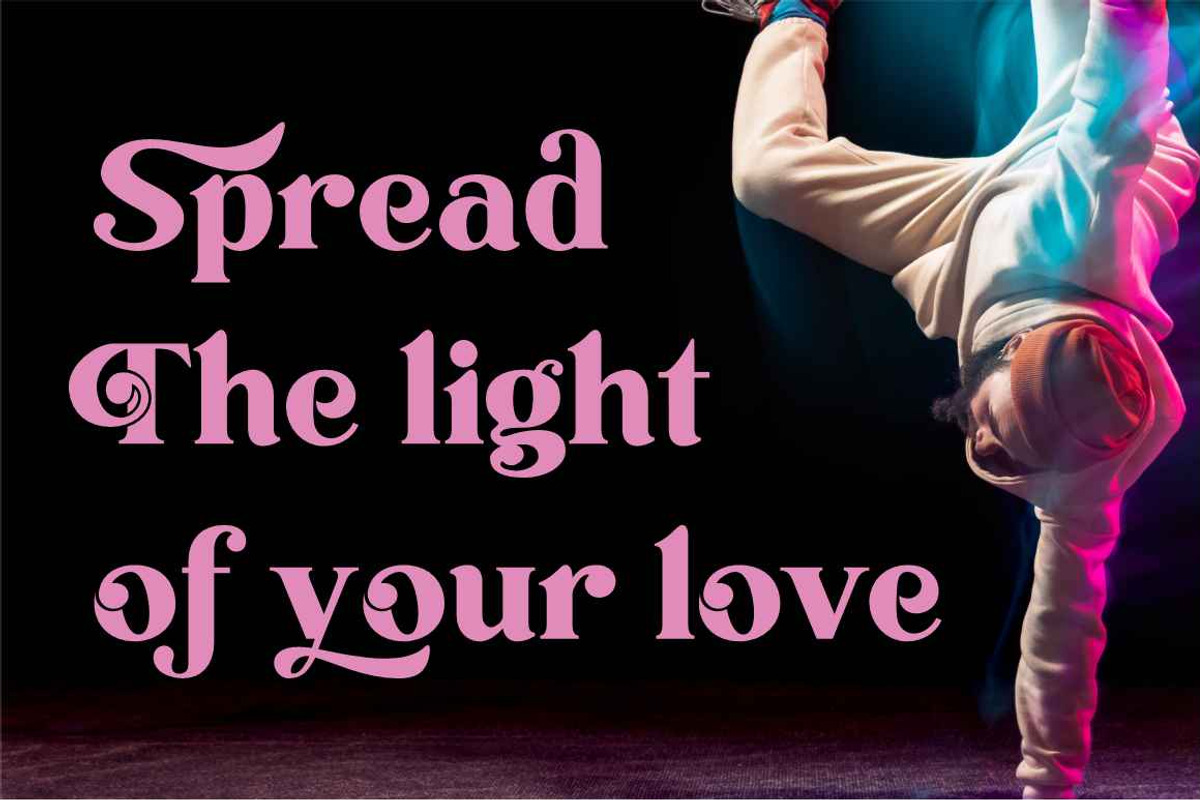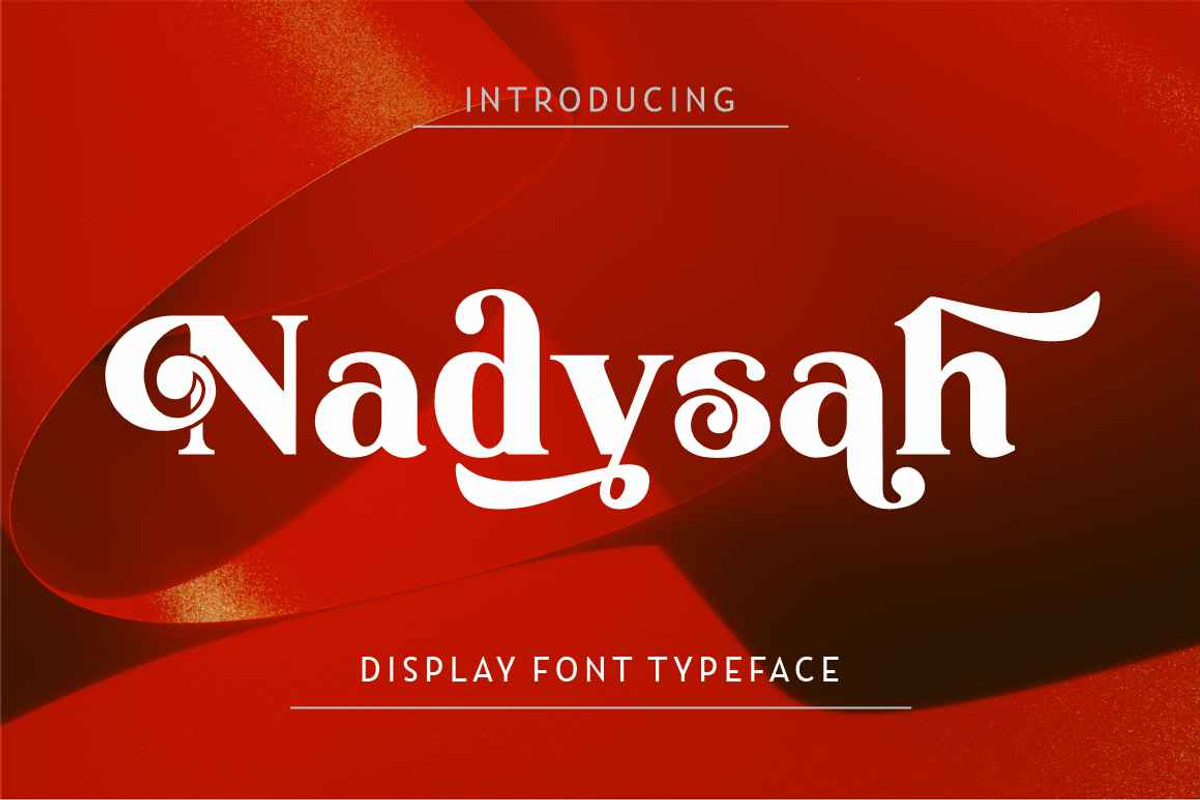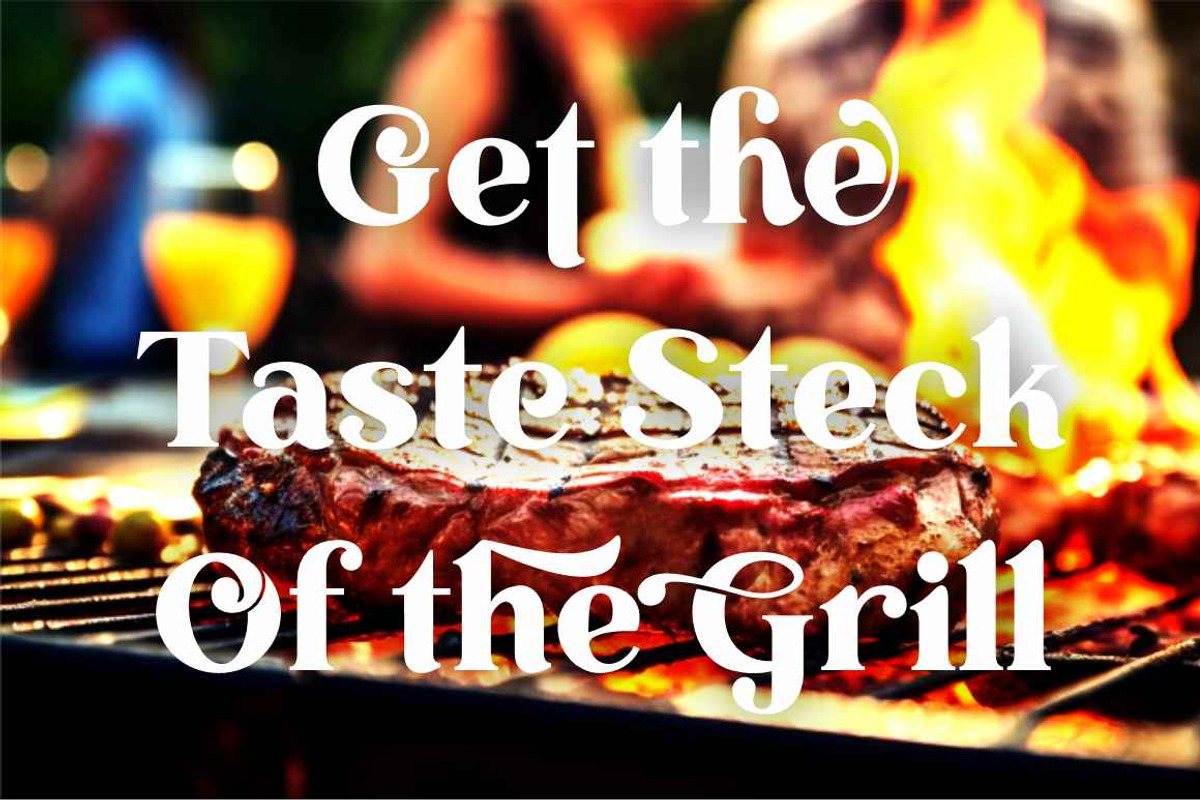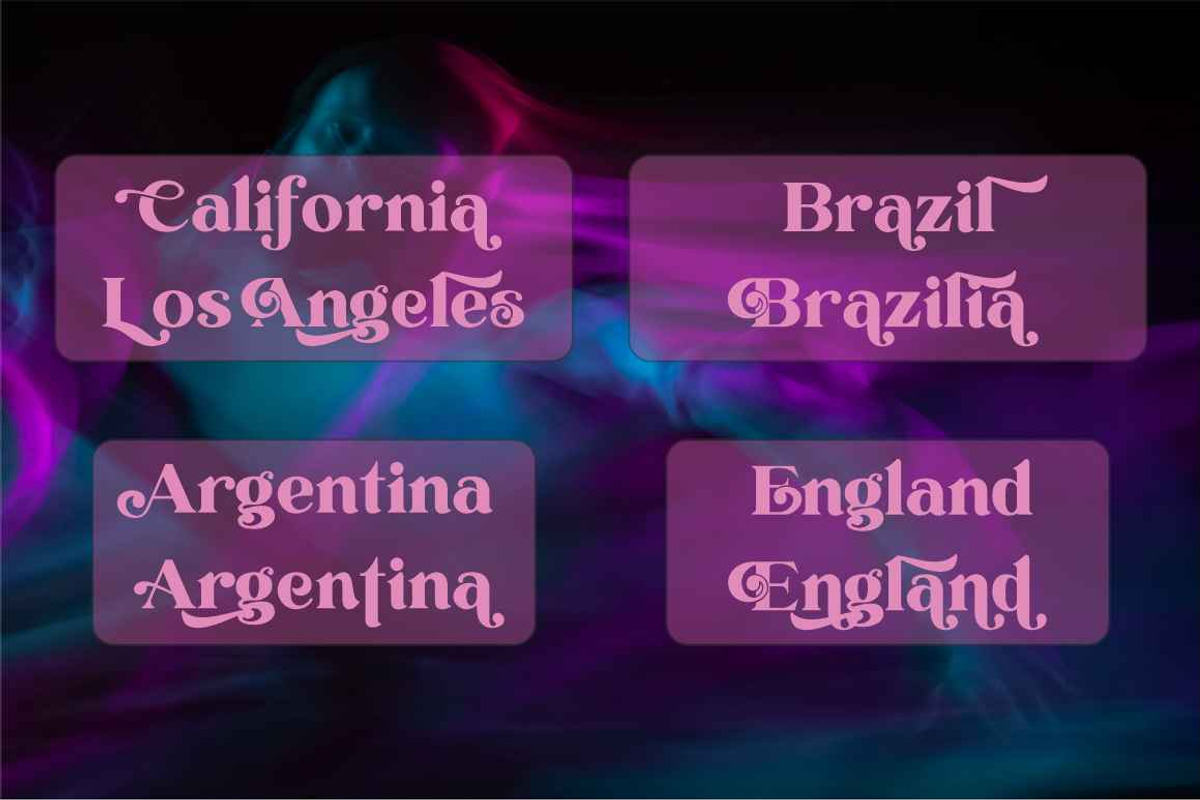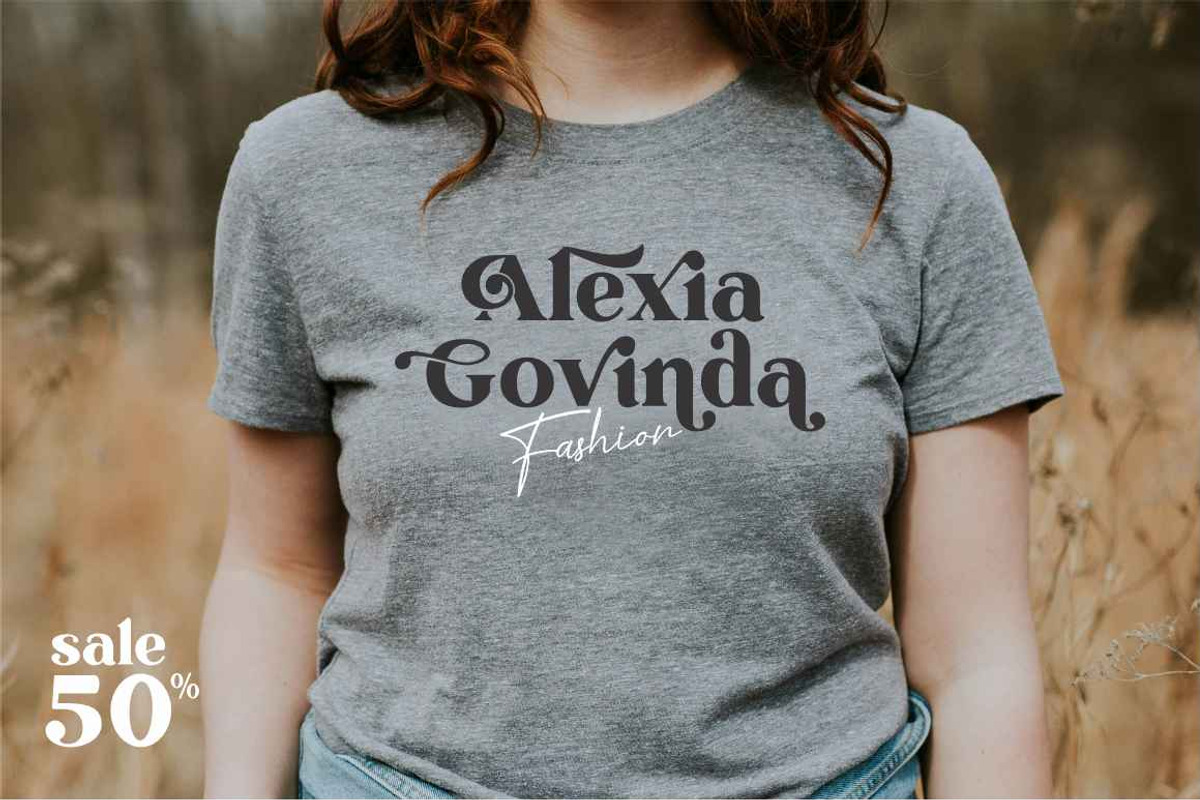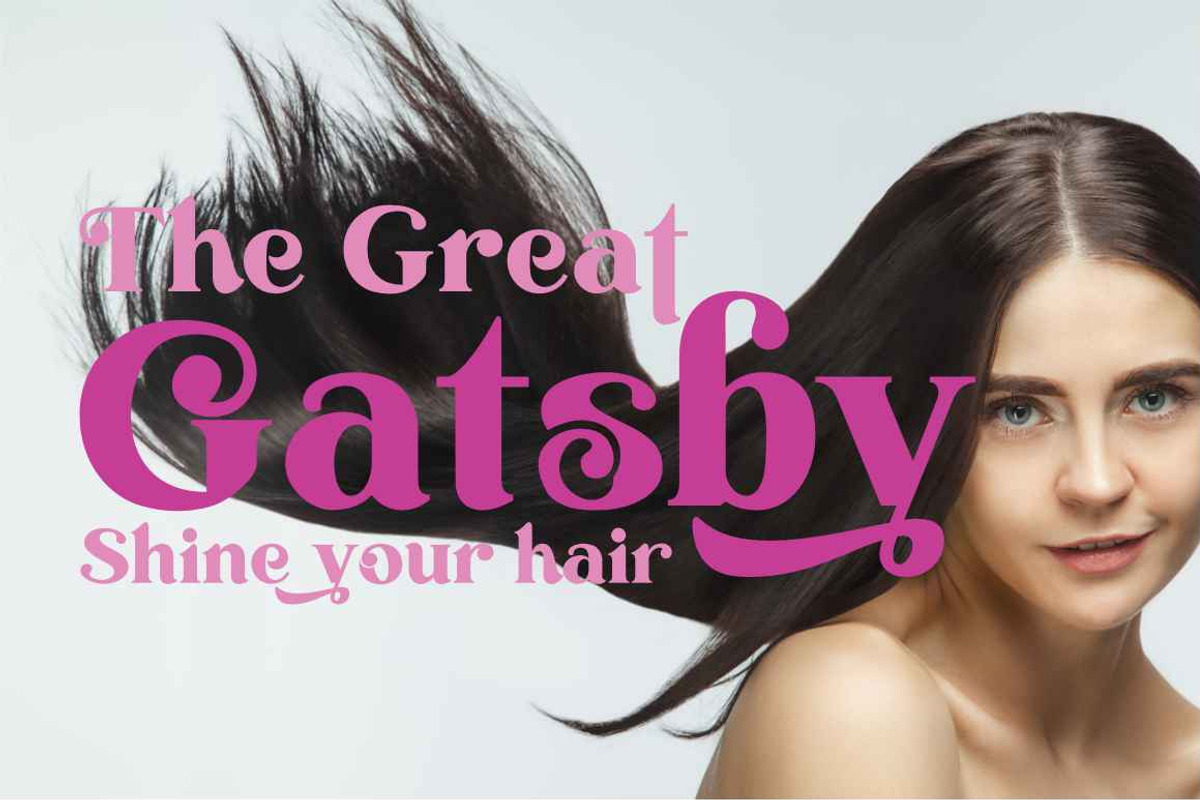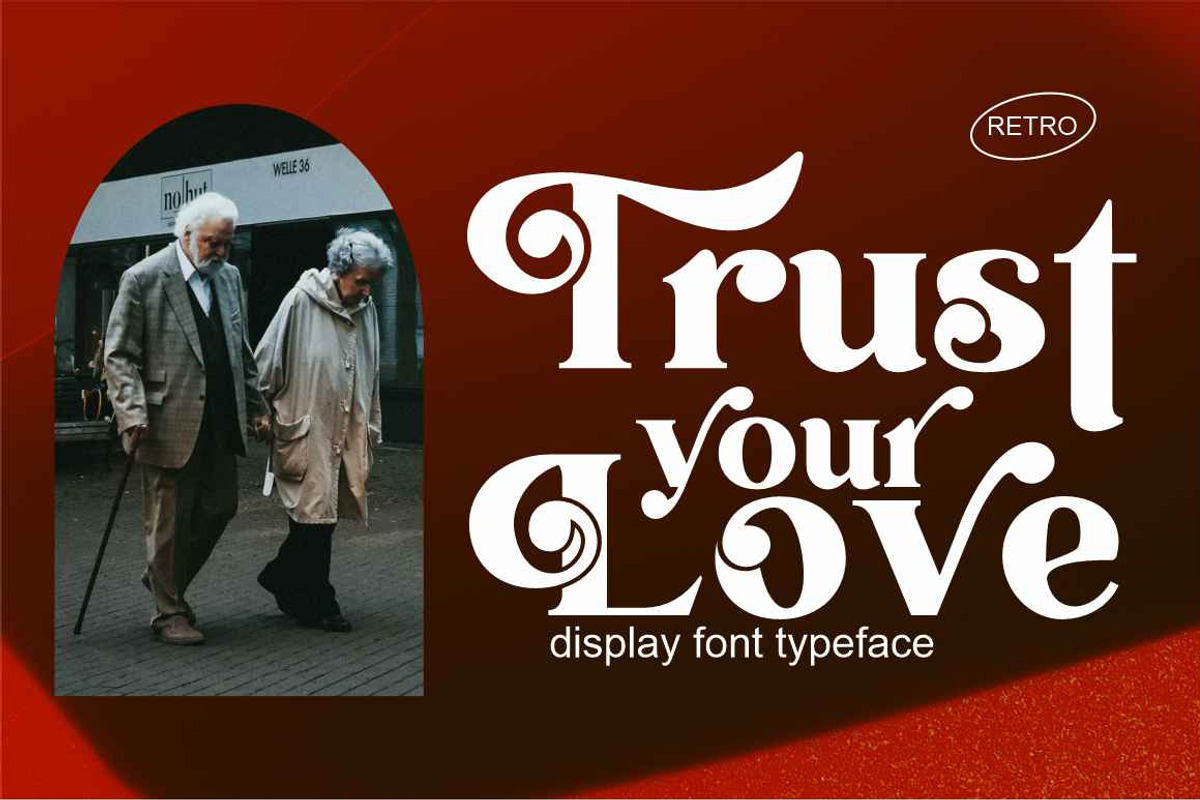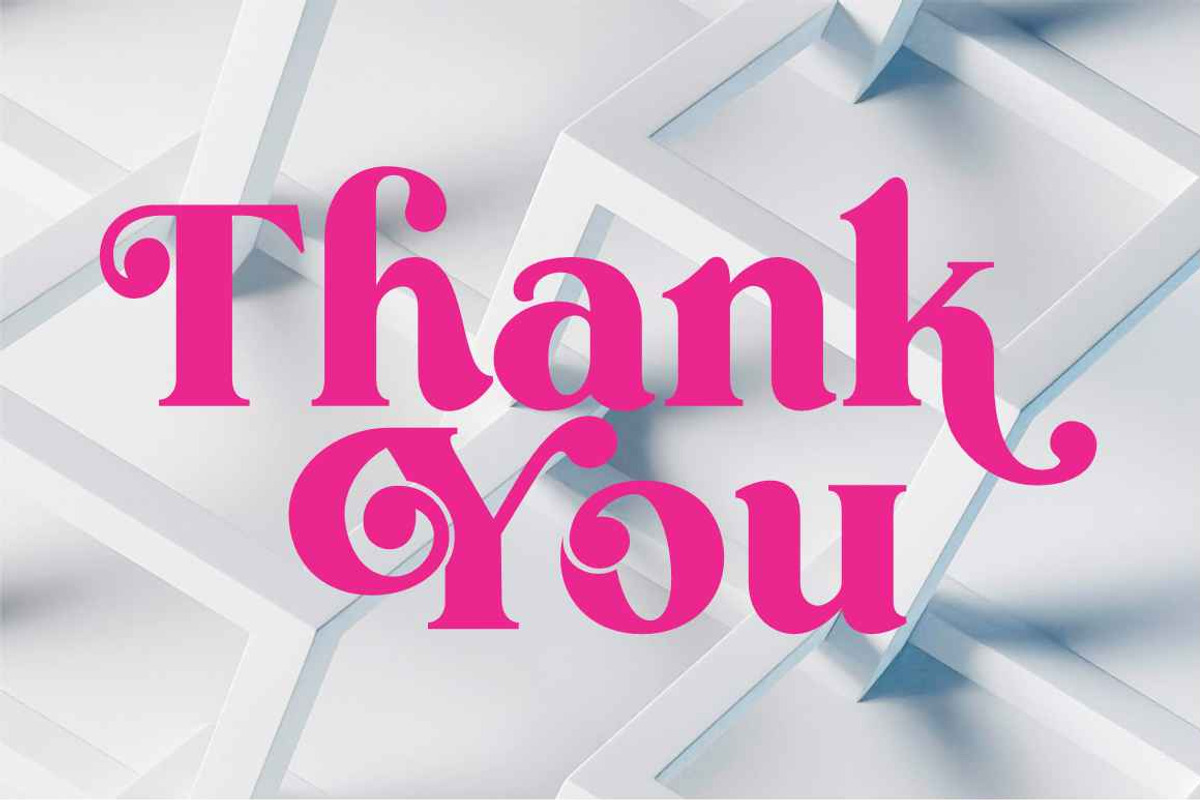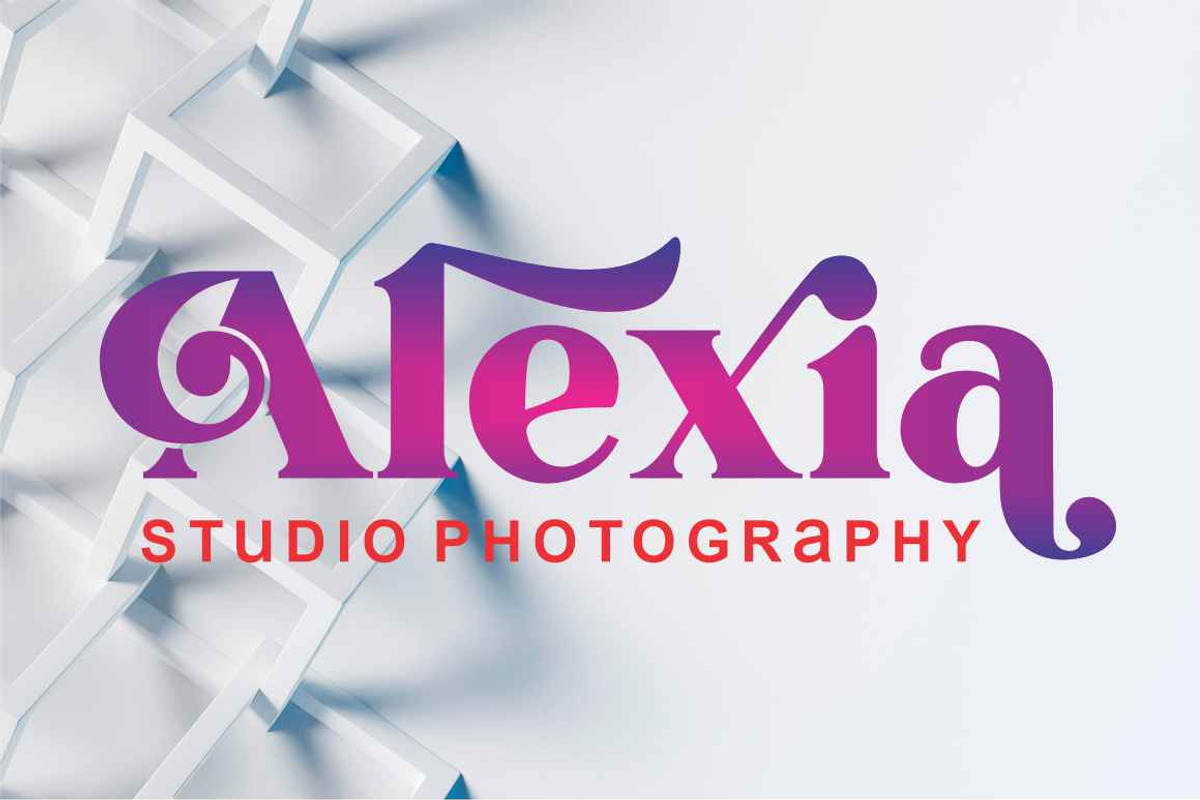
Nadysah
Nadysah with a creative atmosphere and perfect shape, inspired by today's beautiful Display serifs. thick,
balanced and varied, born for luxury and beauty.
In my example I show how this serif can be used. It's great for logotypes, branding, wedding invitations, romantic cards, retro labels, packaging, name spelling and more.
Nadysah comes with beautiful upper and lower case letters, numbers, and punctuation. In addition to the main character set,
there are many alternative characters, start and end sweeps.